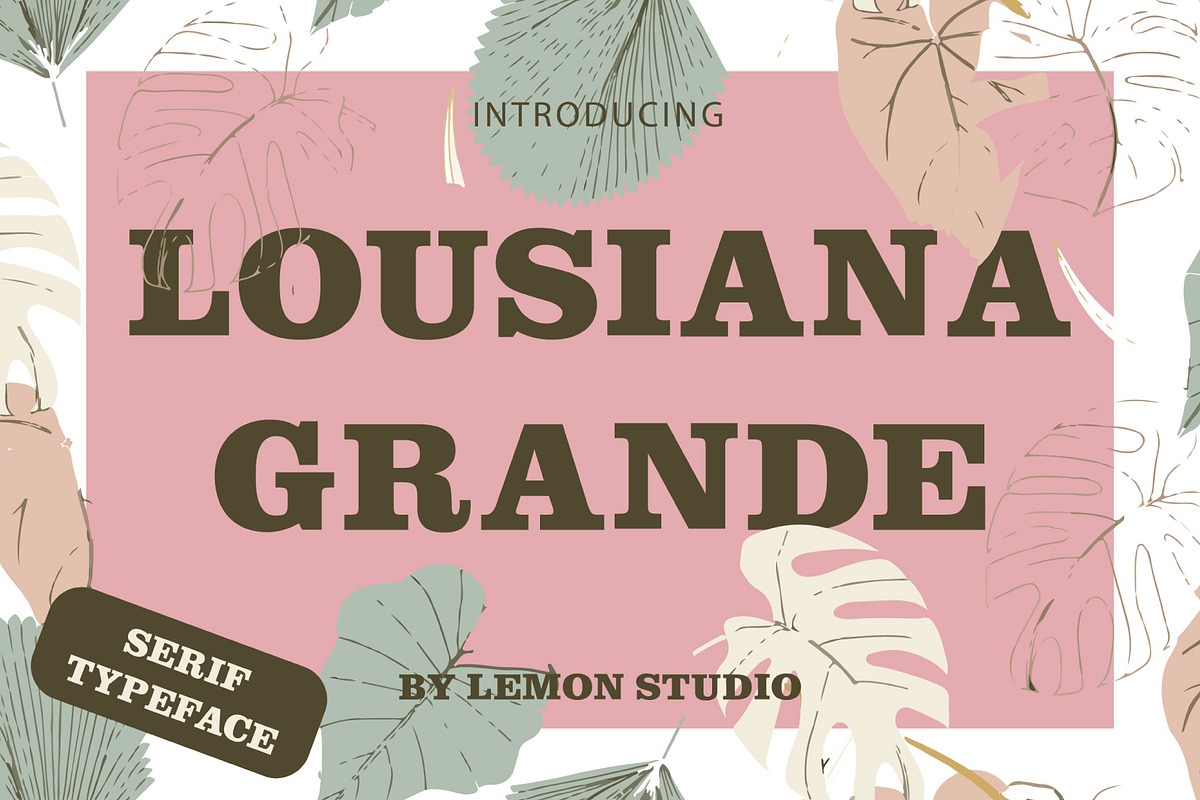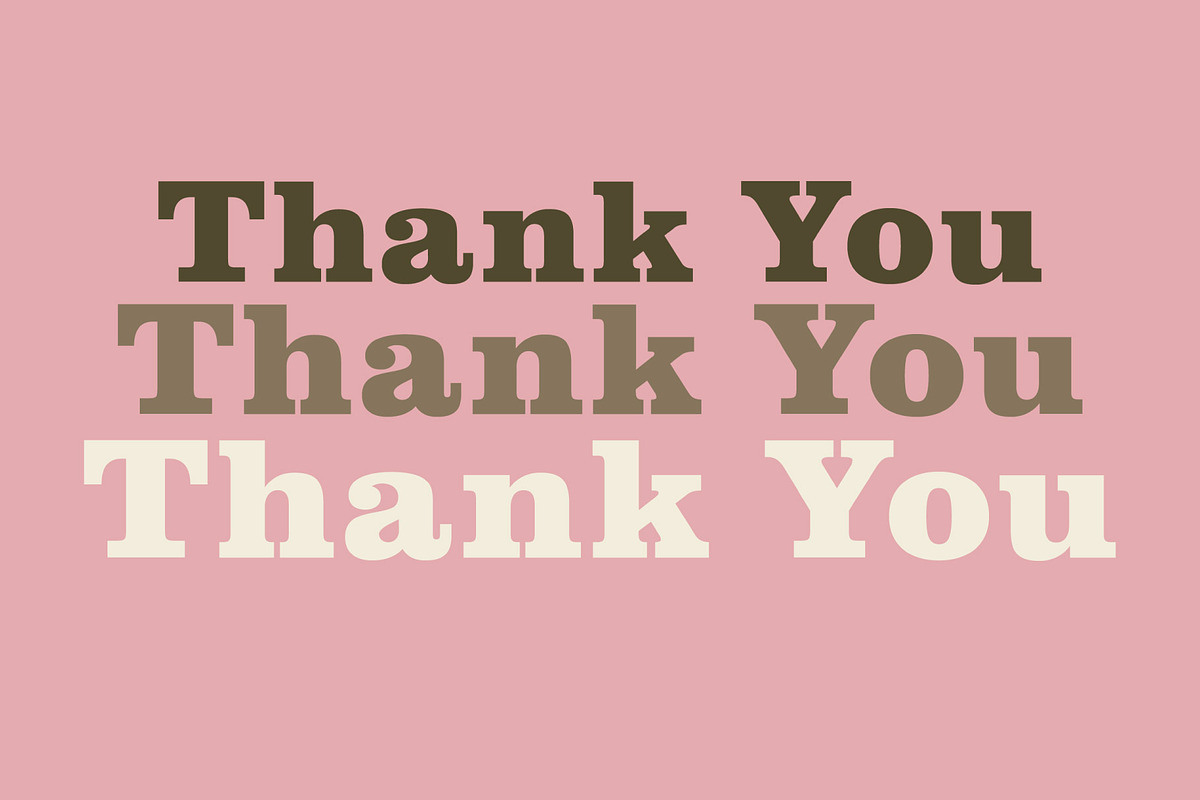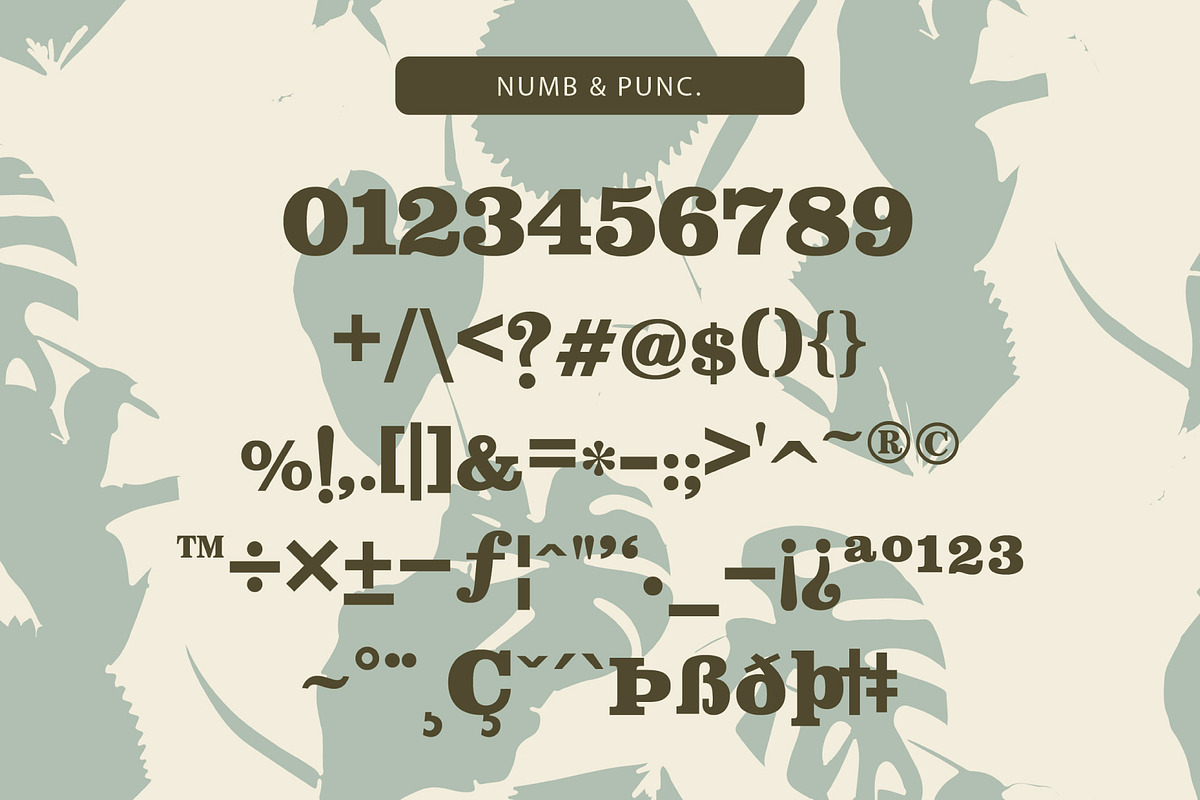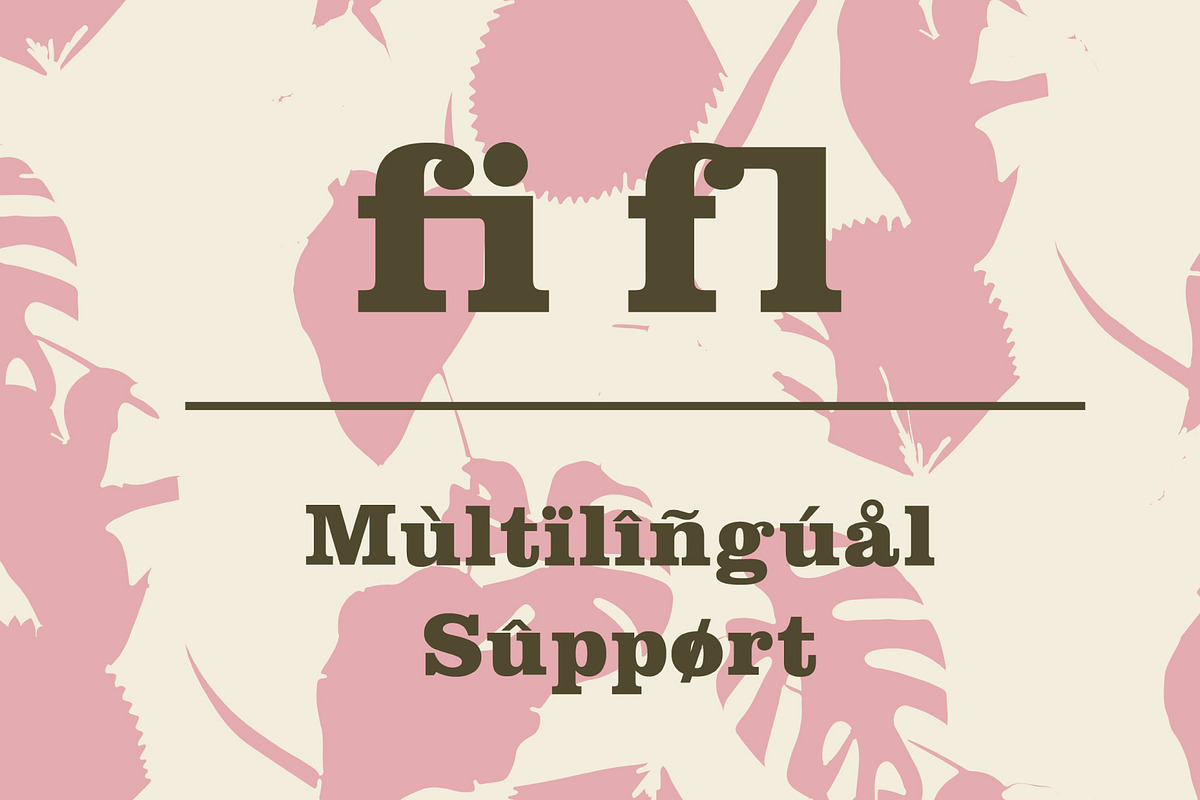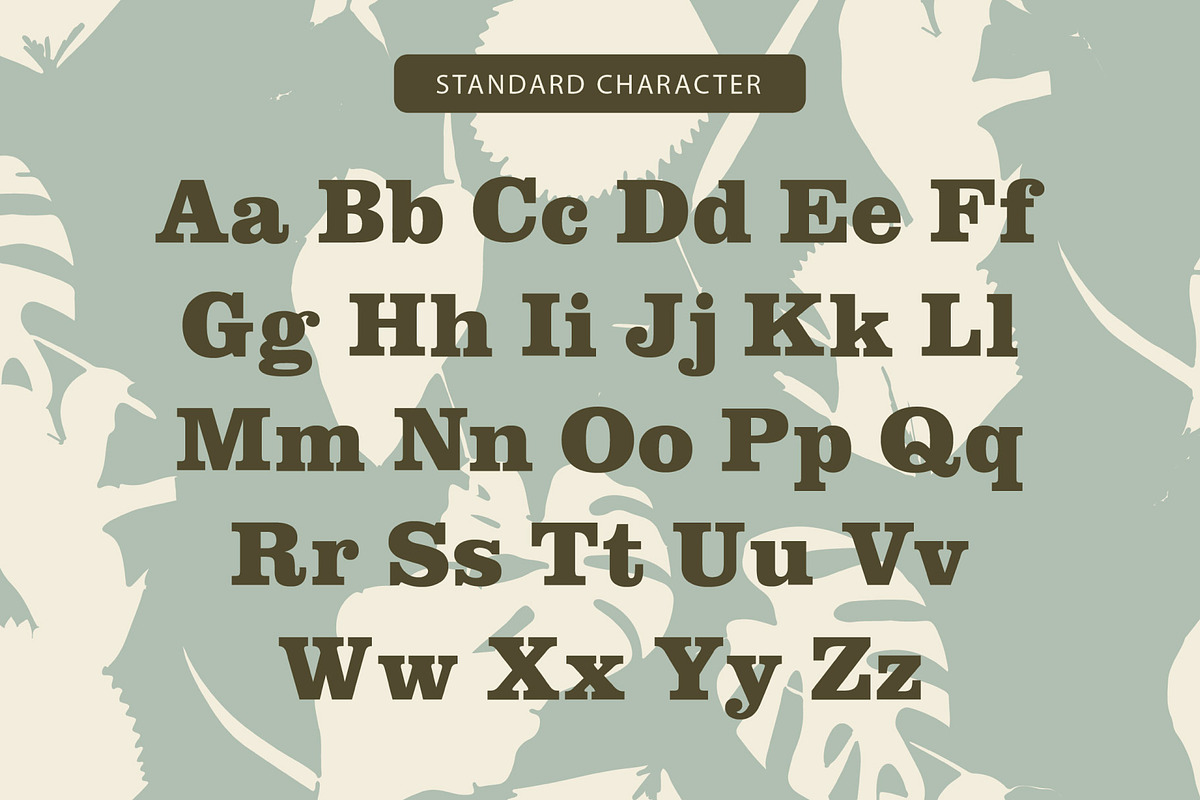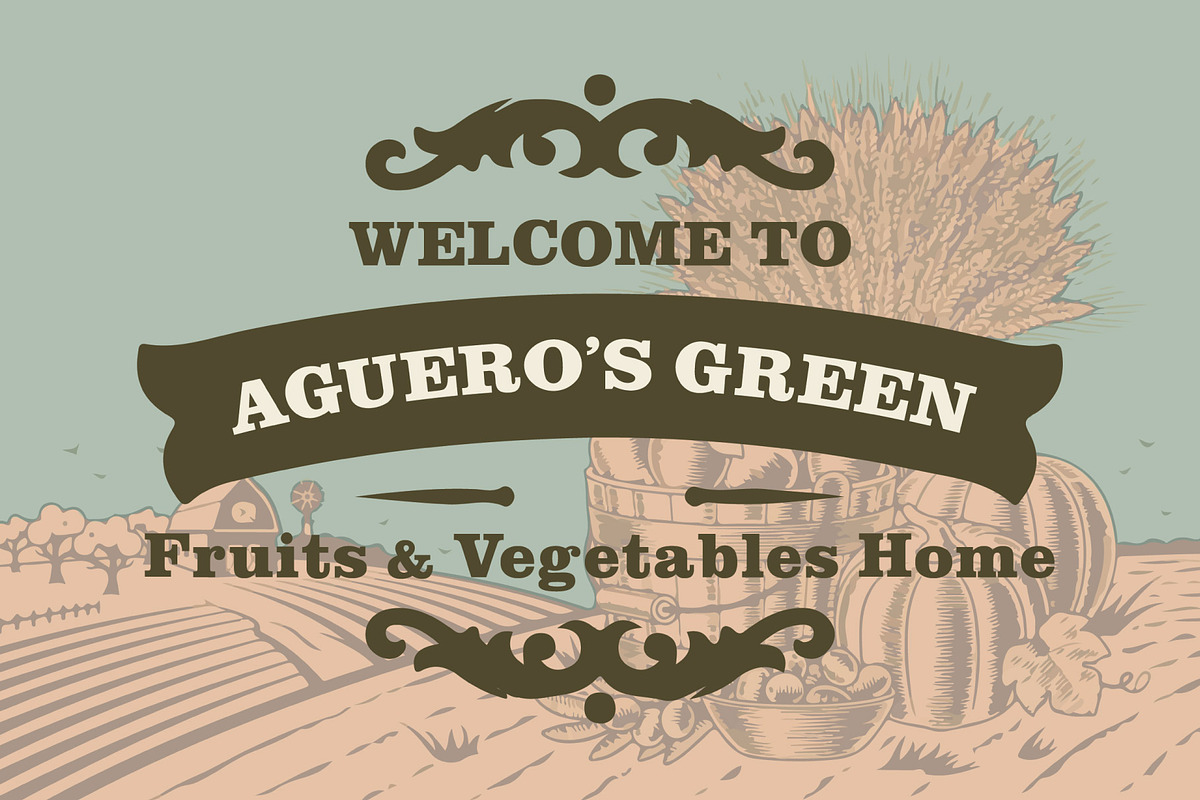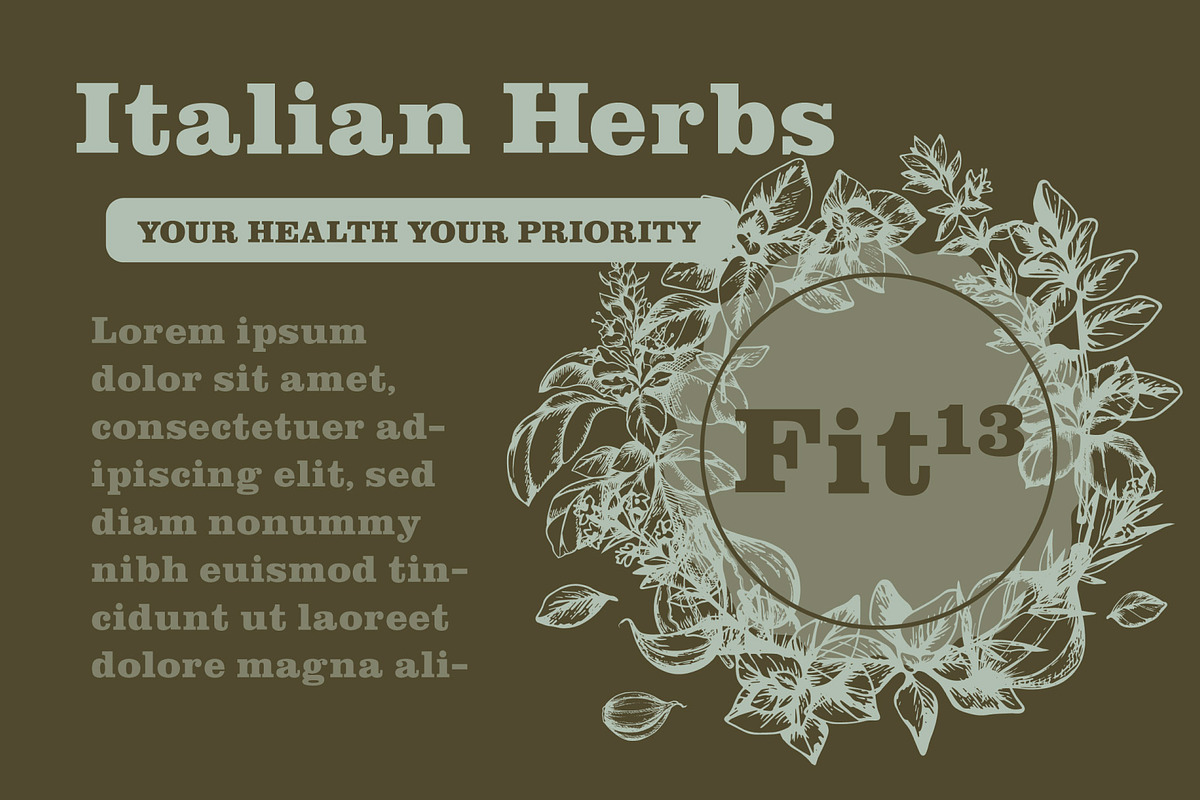
Lousiana Grande - Modern Serif
Lousiana Grande is a modern serif and simple elegant font. It's a very versatile font that works great in large and small sizes.
Lousiana Grande font is perfect for branding projects, logo design, clothing branding, product packaging, magazine headers, or simply as a stylish text overlay to any background image.
OPEN TYPE FEATURES: -Standard Ligatures -Superscript -Multilingual Support.